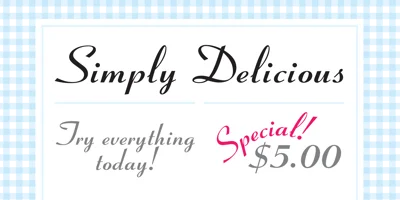
Coronet MT Font
Coronet MT Font is perfect for wedding invitations, elegant stationery, formal certificates, luxury branding, personal correspondence, greeting cards, and sophisticated script applications. This graceful typeface brings regal elegance and handwritten charm to refined design projects.
Coronet MT Font is exciting because it embodies royal sophistication with its flowing, crown-worthy letterforms that convey elegance and prestige while maintaining exceptional legibility and timeless appeal across formal and luxury applications.
The Coronet MT Font family includes the classic script style with alternative character sets and decorative elements. This royal collection provides designers with elegant options for creating distinguished and memorable luxury brand experiences.
Coronet MT Font offers designers access to a regally crafted script typeface that represents the pinnacle of elegant handwriting and formal correspondence design. This sophisticated font features beautifully designed letterforms with flowing connections and refined flourishes that create immediate associations with luxury, prestige, and royal elegance. The typeface showcases graceful proportions and aristocratic aesthetics that enhance formal communications while maintaining excellent readability. Its regal character makes it particularly suitable for luxury brands and formal occasions that require typography capable of conveying sophistication, elegance, and distinguished taste. Coronet MT Font delivers exceptional royal impact for applications where ordinary fonts lack the elegance and prestige necessary for luxury positioning and formal communications. The font's aristocratic appeal and elegant aesthetic make it an essential tool for designers working on projects that require typographic expression of luxury, royal sophistication, and elegant formality that resonates with audiences seeking authentic luxury experiences and distinguished elegance.